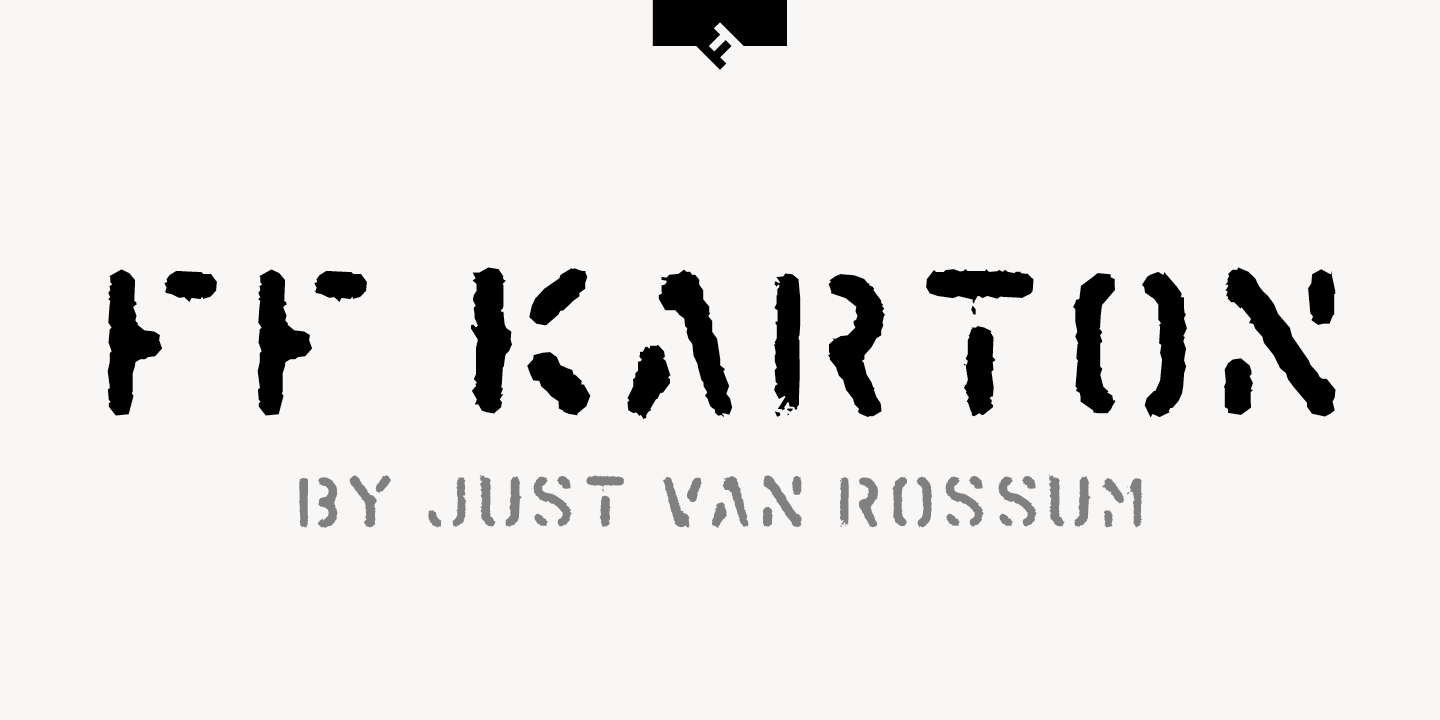
FF Karton Font is perfect for vintage packaging designs, retro poster projects, cardboard product mockups, eco-friendly branding, handcrafted product labels, artisan business logos, sustainable packaging concepts, organic food branding, craft beer labels, rustic wedding invitations, farmer's market signage, DIY project materials, and environmental awareness campaigns.
This font is exciting because it captures the authentic texture and warmth of handmade cardboard lettering, bringing an organic, tactile quality to digital designs that feels genuinely crafted by hand. The irregular edges and natural imperfections create a charming, approachable aesthetic that connects with audiences seeking authenticity over perfection. Each character appears to be lovingly cut from recycled cardboard, making your text feel environmentally conscious and artistically genuine.
The FF Karton Font family includes regular weight with complete uppercase and lowercase characters, numerals, punctuation marks, and special symbols. Some versions may feature additional stylistic alternates, ligatures, and decorative elements that enhance the handcrafted cardboard appearance, along with multilingual support for international design projects.
Whether you're designing sustainable packaging, creating artisan brand identities, or developing eco-conscious marketing materials, FF Karton Font Free Download delivers the authentic handmade appeal your project needs. This typeface transforms digital text into something that feels tangible and environmentally responsible. The font's unique cardboard-inspired aesthetic makes it ideal for brands emphasizing sustainability, craftsmanship, and authenticity. Designers working on eco-friendly projects will love how this font communicates environmental values while maintaining excellent readability and professional quality across all applications.